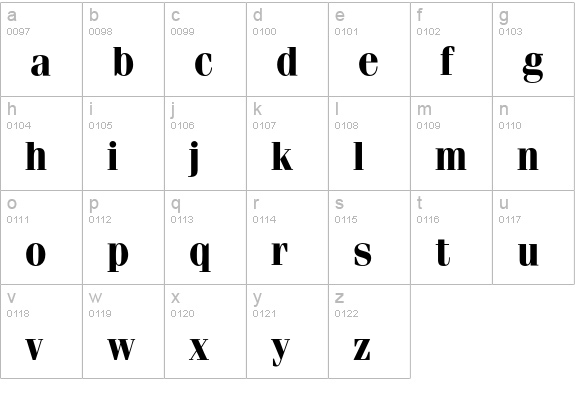
Fenice* Bold Font Details
Fenice* Bold is a strong, high-contrast variant in the Fenice* typeface family \xE2\x80\x94 well suited to headlines, attention-grabbing titles, and strong calls-to-action.
Fenice Bold font embodies a perfect balance of sophistication and modernity, making it a versatile choice for a wide range of design projects. Its bold and commanding presence exudes confidence and strength, making it ideal for headlines, logos, and branding materials. The clean lines and elegant curves of Fenice Bold create a sense of timeless elegance that effortlessly elevates any design. What sets Fenice Bold apart is that it is not only visually striking but also freely available for download at FontsMarket.com. This means that designers and creatives can access this high-quality font without any cost, allowing them to enhance their projects with a touch of elegance and professionalism without breaking the bank. With Fenice Bold, you can make a bold statement and leave a lasting impression, all while enjoying the convenience of a free download.